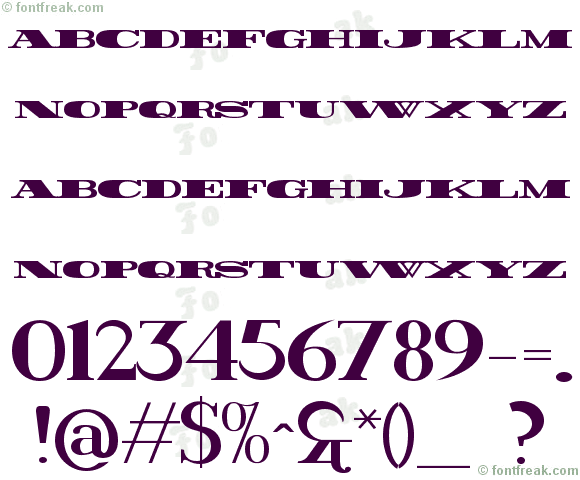
Rider Widest Ultra-expanded Bold Italic
With a freeware license, users can enjoy the Rider Widest Ultra-expanded Bold Italic font free download, making it accessible for both personal and professional projects. What sets this font apart is its combination of boldness and elegance, allowing it to make a memorable statement without overwhelming the viewer. Whether you’re aiming to evoke excitement or capture a sense of modern sophistication, this font is a valuable addition to any designer’s toolkit.